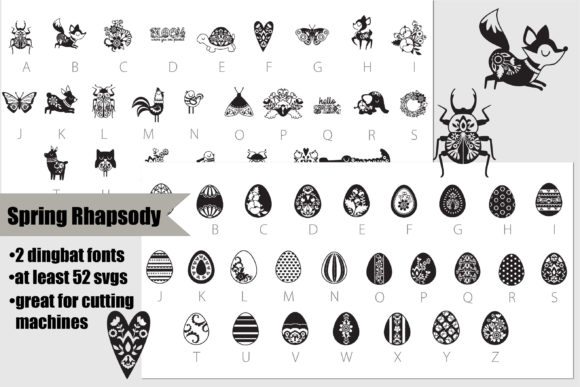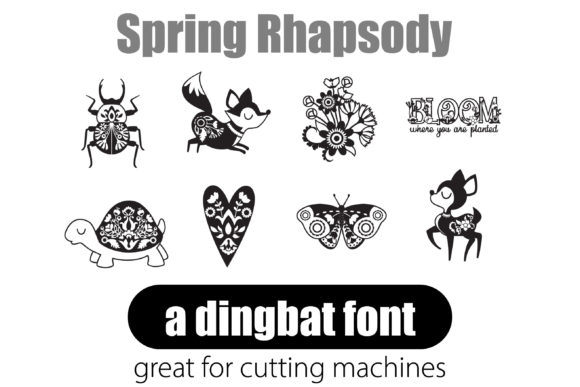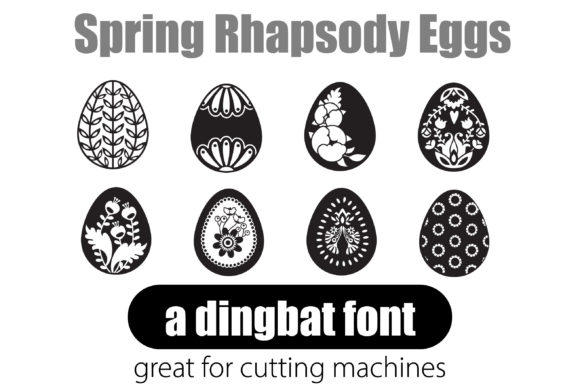
About Spring Rhapsody Font
The Spring Animals & Easter Eggs Dingbats bundle offers you a delightful collection of two dingbat fonts, each with its unique charm and purpose. Let’s explore these fonts in detail:
1. Spring Animals and Insects Dingbat:
This dingbat font features a charming assortment of adorable spring-themed animals, insects, and other elements that evoke the spirit of the season. From cute bunnies and chicks to butterflies and flowers, this font captures the essence of spring. It is perfect for adding a playful touch to various projects, such as greeting cards, invitations, scrapbooking, and more. Whether you’re creating designs for spring events or simply want to infuse your creations with a fresh and lively feel, this dingbat font is a wonderful choice.
2. Decorated Easter Eggs Dingbat:
The second dingbat font in the bundle showcases a delightful collection of decorated Easter eggs. Each egg is intricately designed with unique patterns, colors, and embellishments, making them perfect for Easter-themed projects. Whether you’re creating Easter cards, decorations, or personalized gifts, this font will add a festive and joyful touch. The designs are specially optimized for use with vinyl and cutting machines, allowing you to easily create stunning Easter-inspired crafts with precision and ease.
Both fonts in this bundle offer their distinct advantages and can be used separately or in combination to suit your creative needs. Whether you’re captivated by the charm of spring animals and insects or drawn to the whimsy of decorated Easter eggs, you have the tools to bring your projects to life.
With the Spring Animals & Easter Eggs Dingbats bundle, you can unleash your creativity and infuse your vinyl and cutting machine projects with the vibrant energy of spring and the joy of Easter. Let these adorable dingbat fonts add a touch of whimsy, warmth, and celebration to your designs!